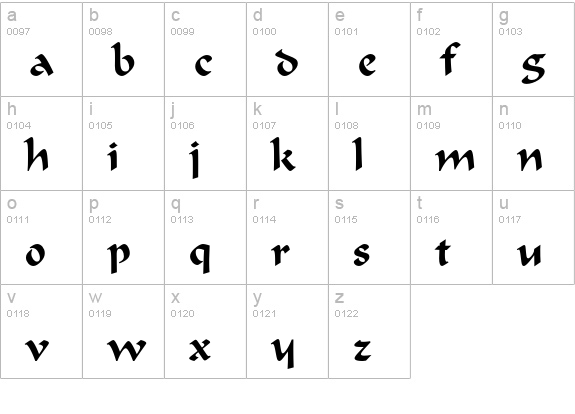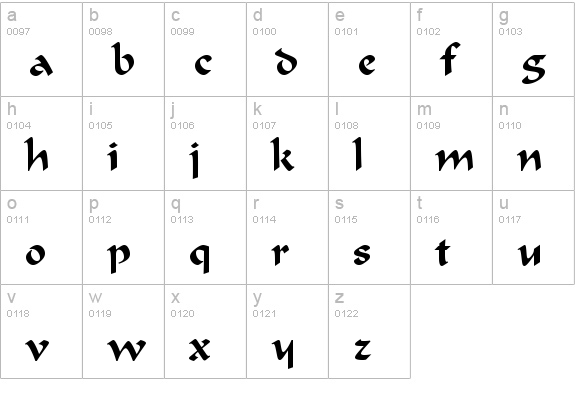
Formal Script 421 Font Details
Formal Script 421 font exudes elegance and sophistication, making it perfect for formal occasions and elegant designs. Its flowing lines and graceful curves give off a sense of timeless beauty that is sure to elevate any project it is used in. This font is ideal for wedding invitations, event posters, and luxury branding. The best part about Formal Script 421 font is that it is free to download at FontsMarket.com. You can easily access this stunning typeface and add a touch of refinement to your designs without any cost. Don't miss out on the opportunity to enhance your projects with this exquisite font that is both stylish and accessible. Download Formal Script 421 font today and elevate your designs to new heights of sophistication and class.